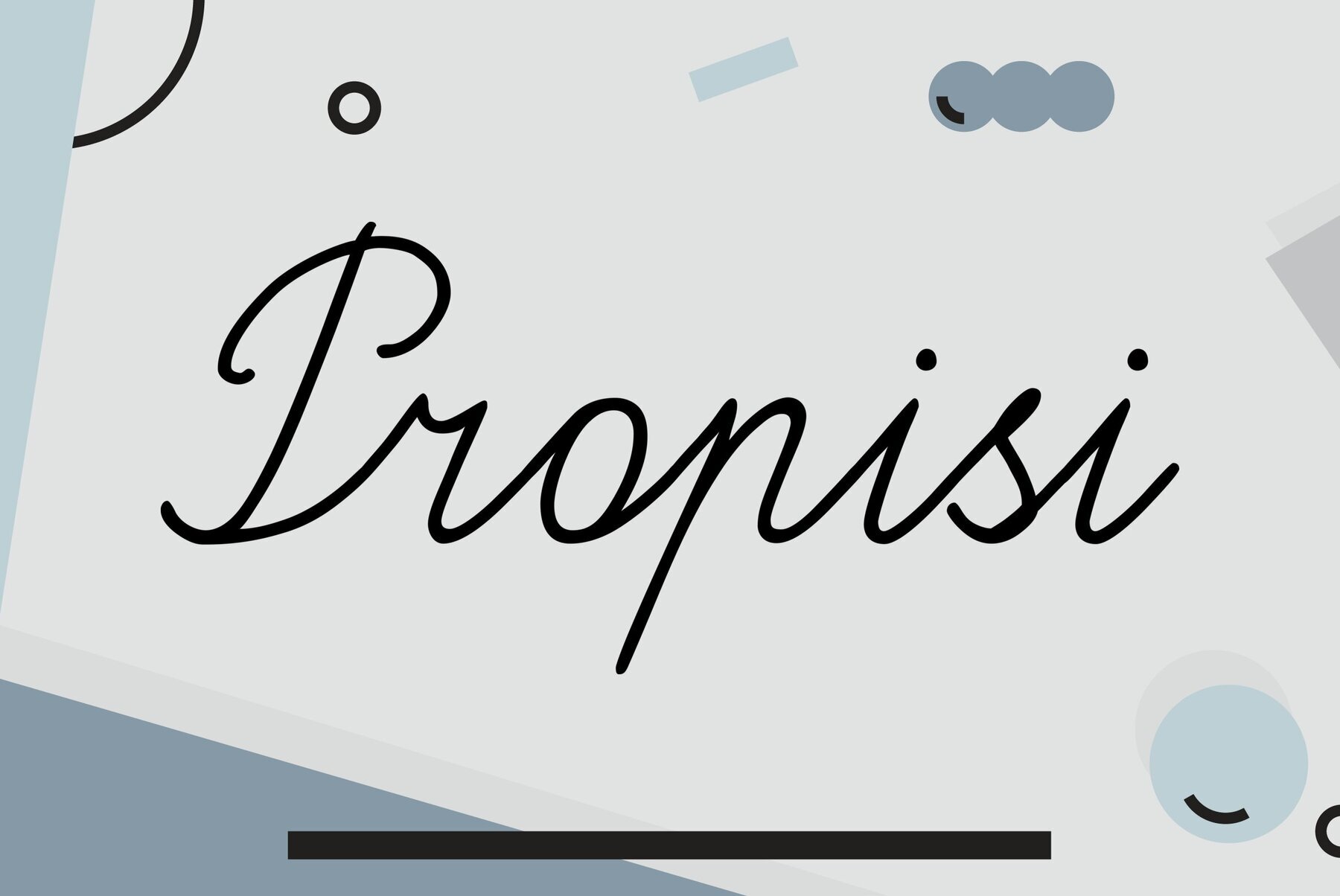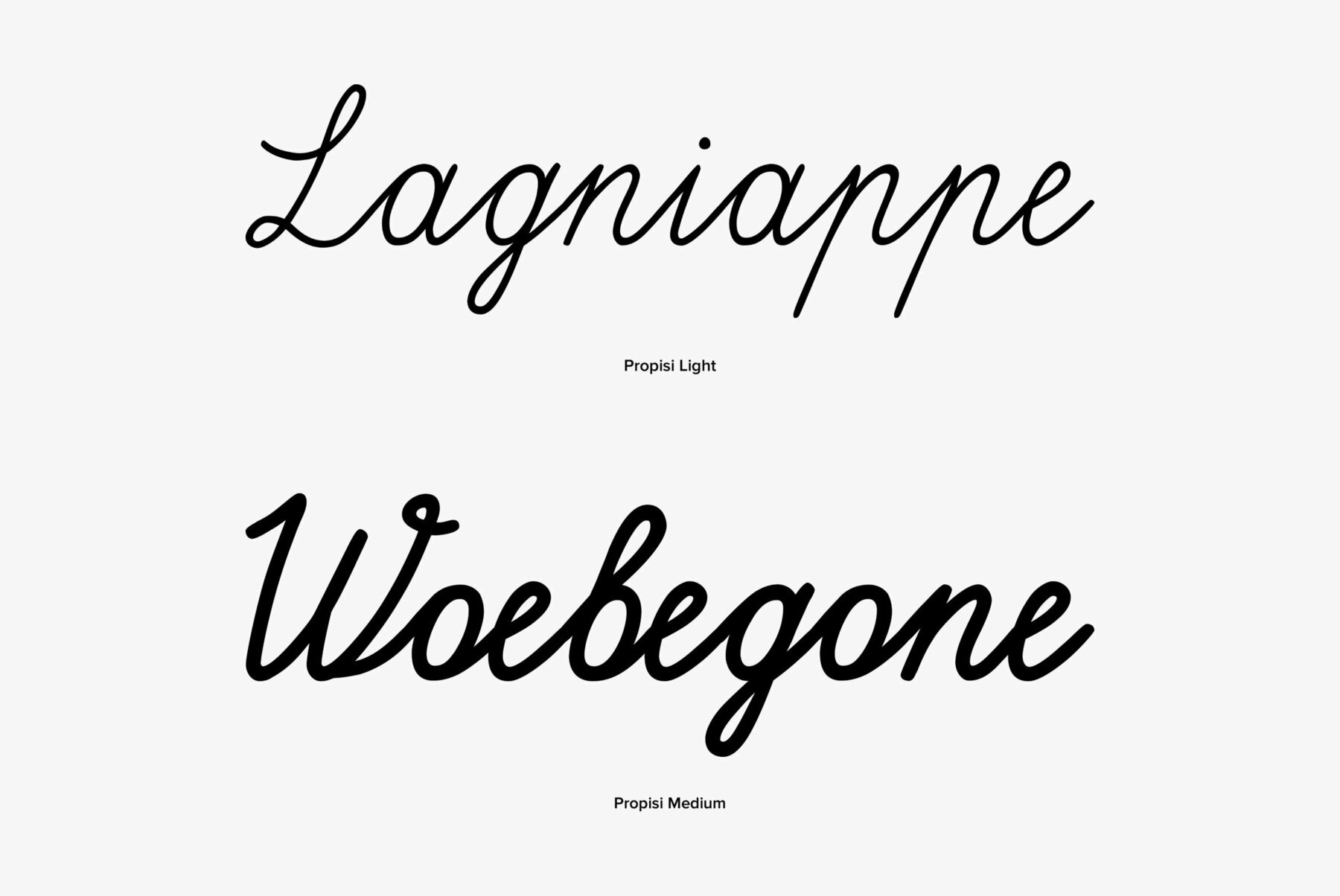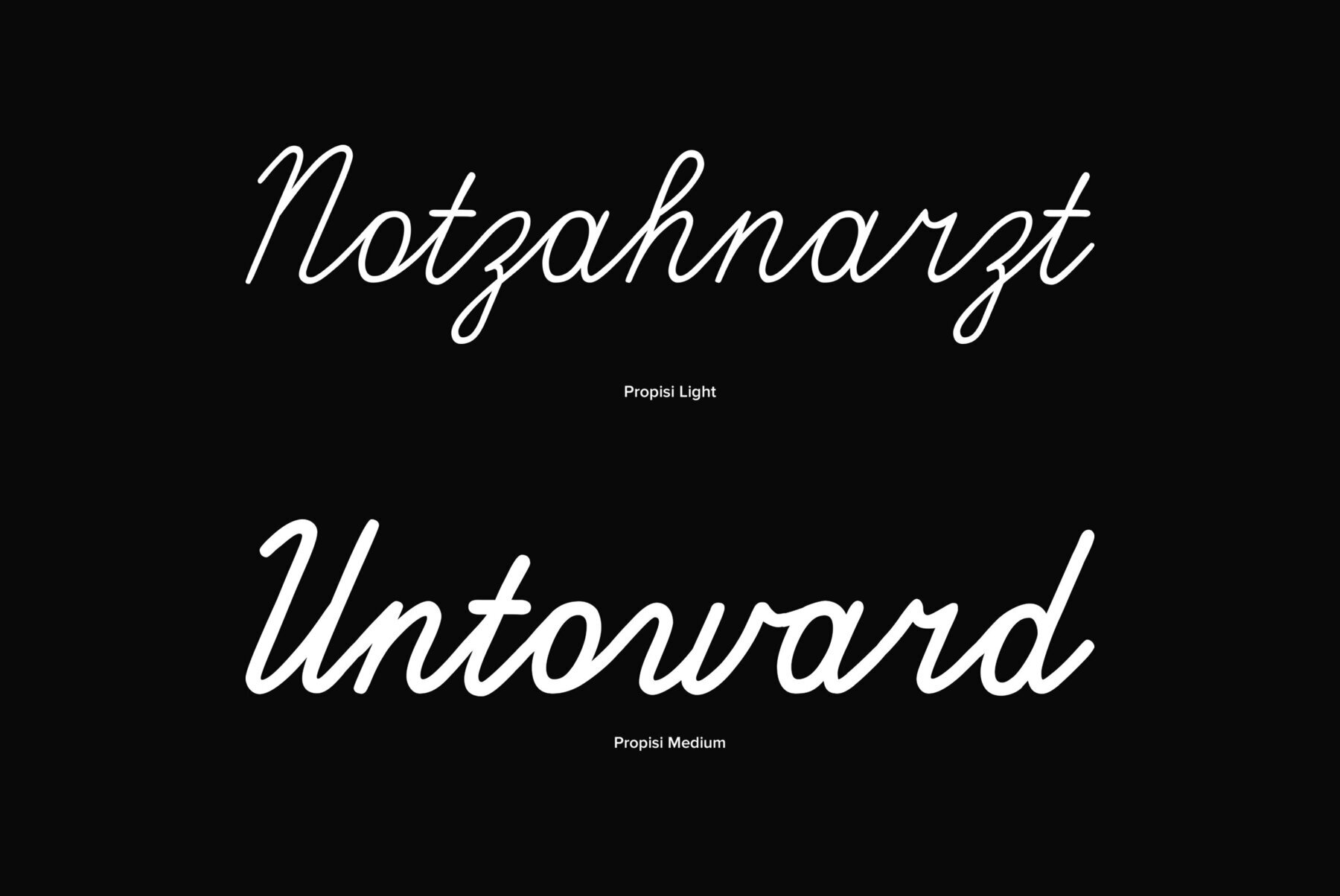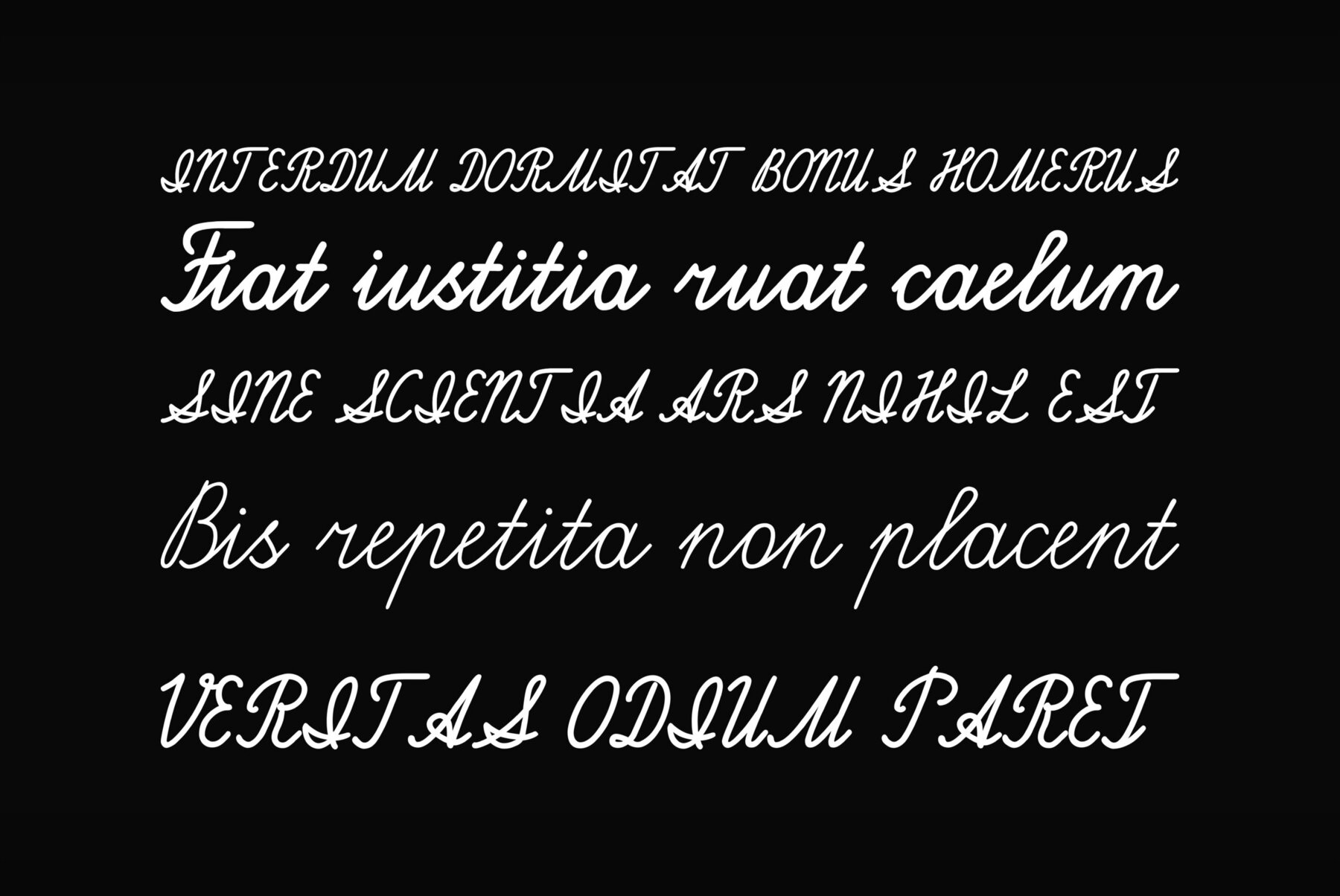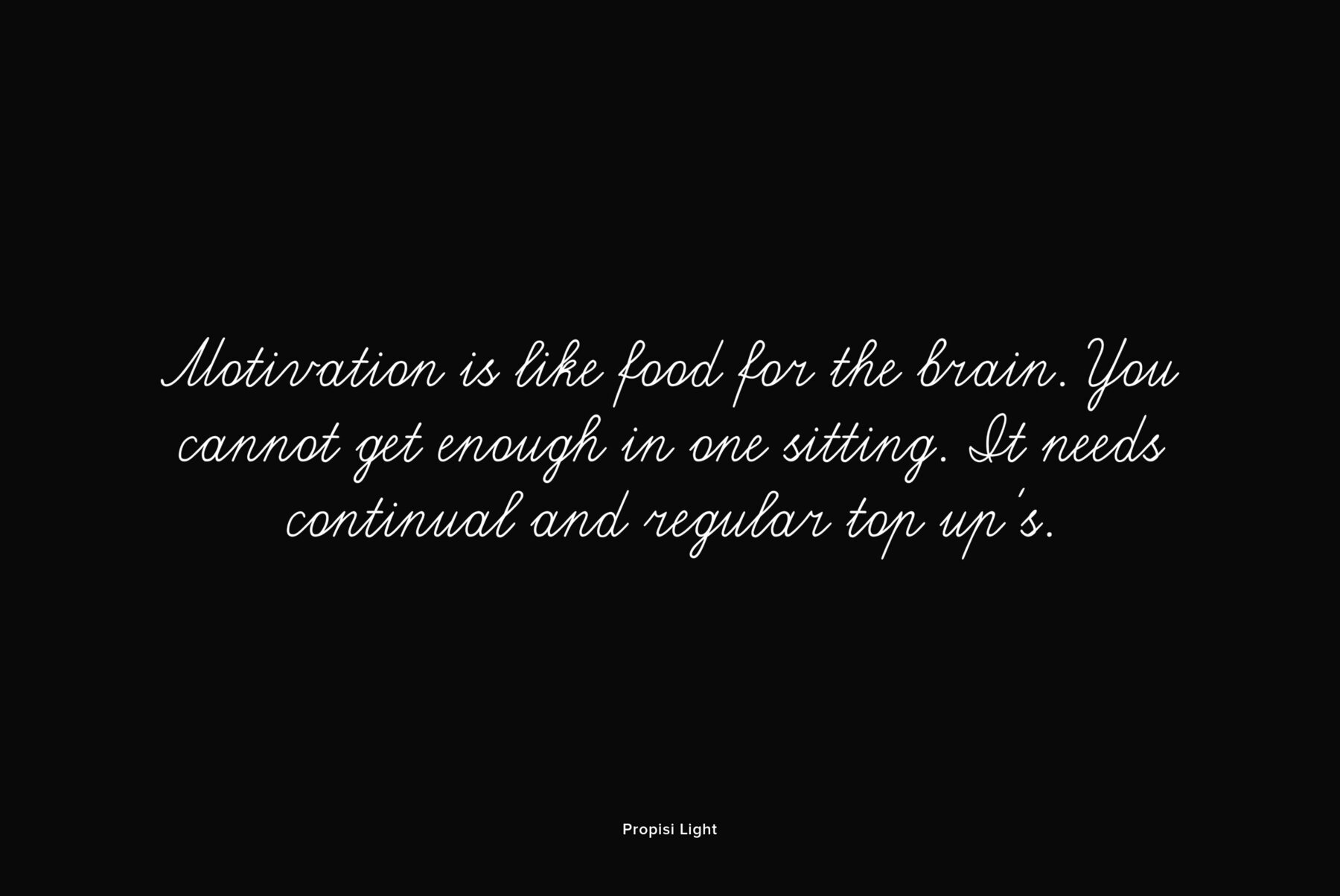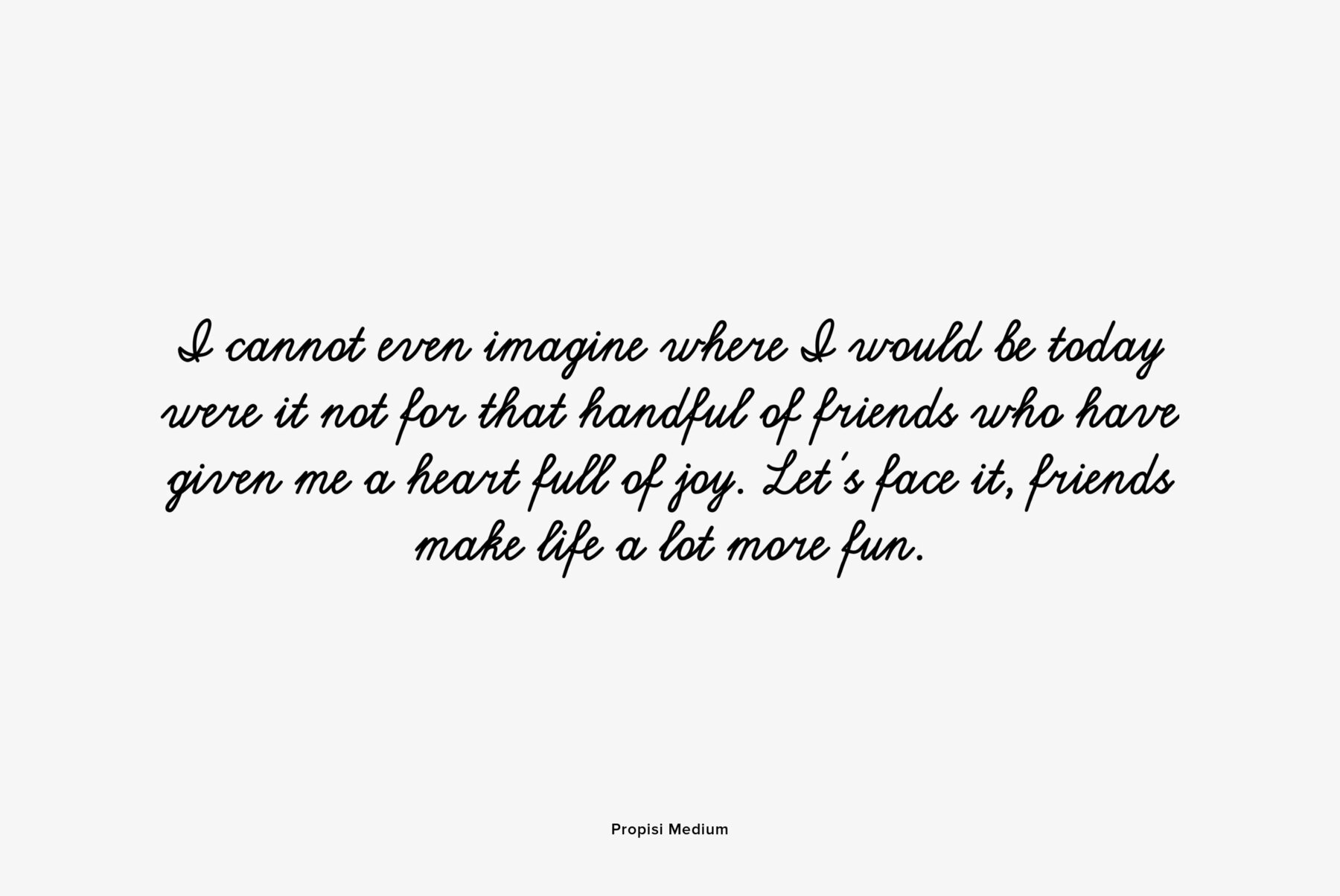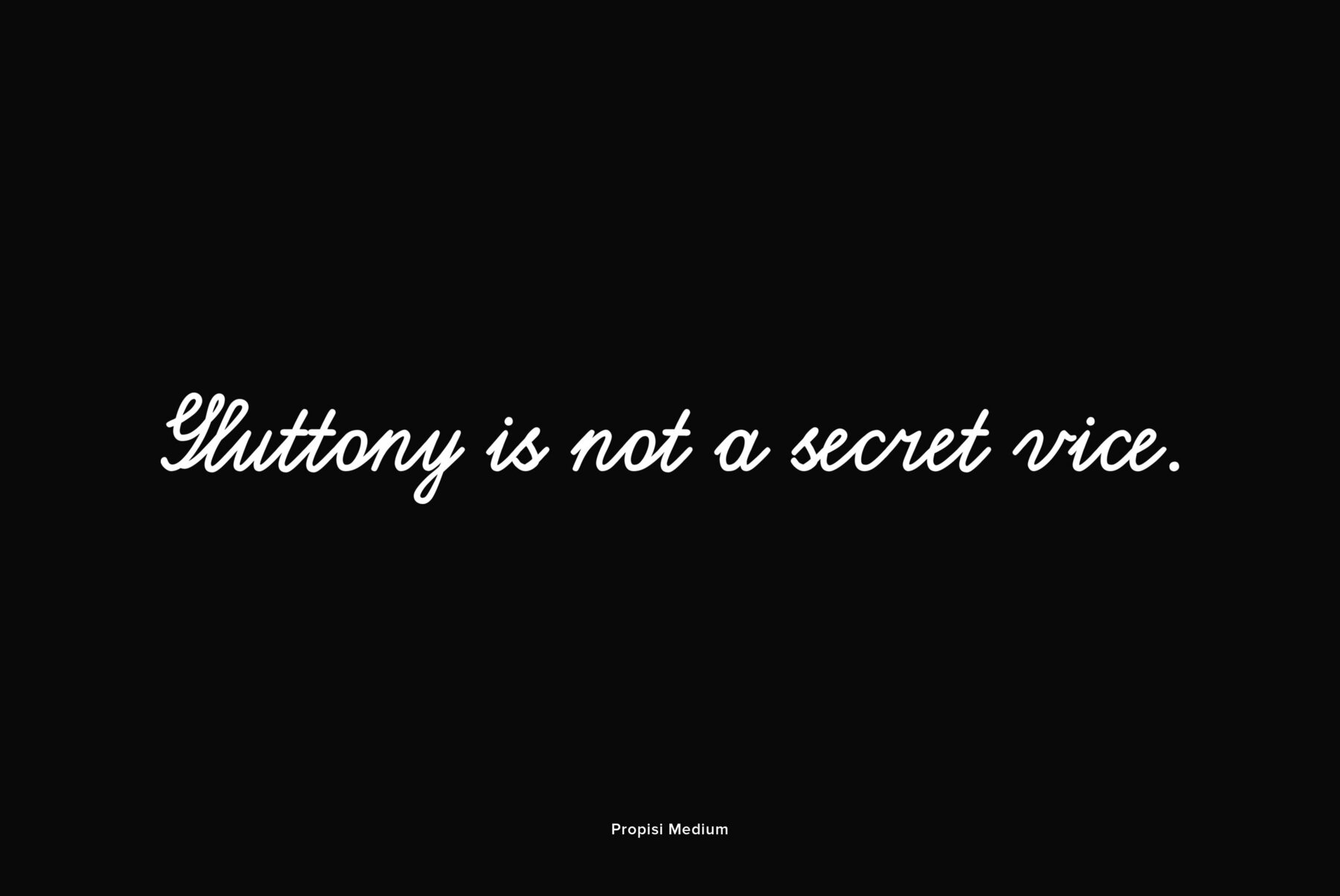
Propisi
The typeface was designed at ParaType (ParaGraph) in 1997 by Manvel Shmavonyan for Russian primary school sample writing schoolbooks. The typeface is based on script fonts presented in the book 'Rodnoy Mir' by. L.I.Tikunova. The first version of the font included just letters of Russian alphabet and basic set of figures and signs. The second version with extended set of alphabetic letterforms was developed in 2004 by Gennady Fridman. Current third version that covers full Cyrillic and Western code pages was prepared by Gennady Fridman and released in 2009. Medium style also was added by him in 2009.